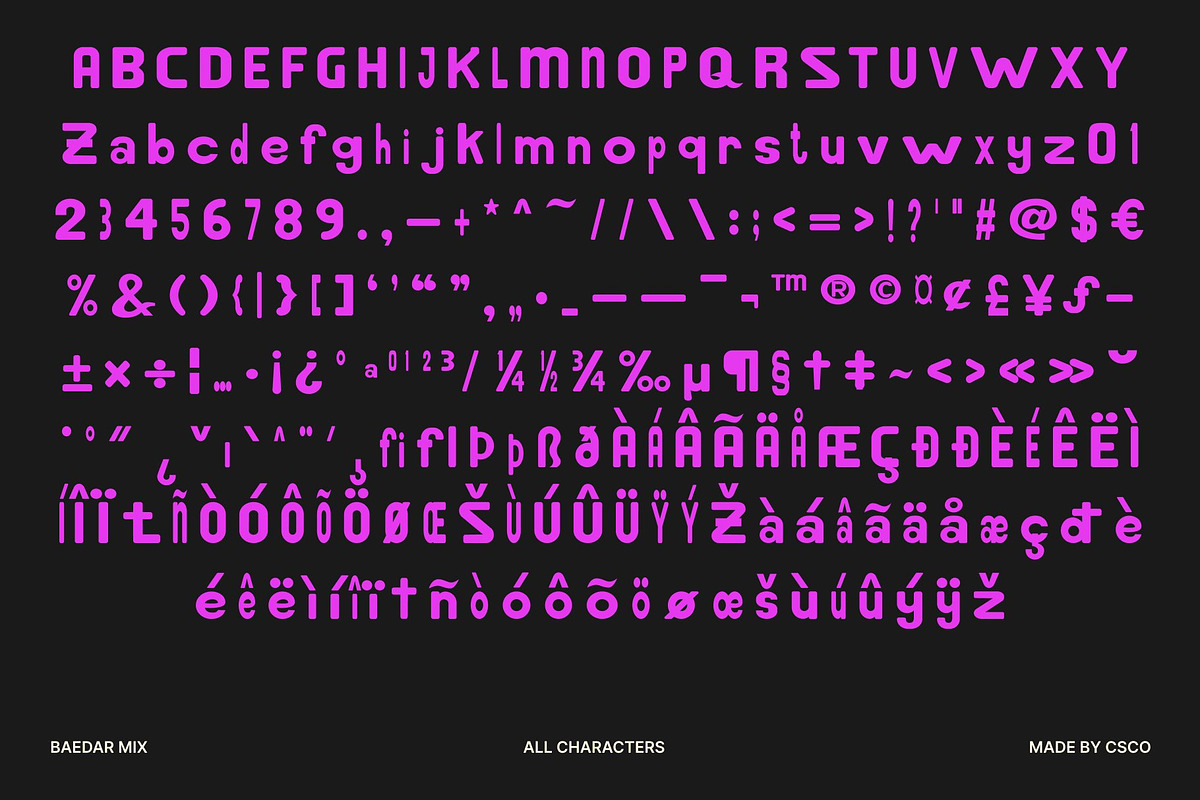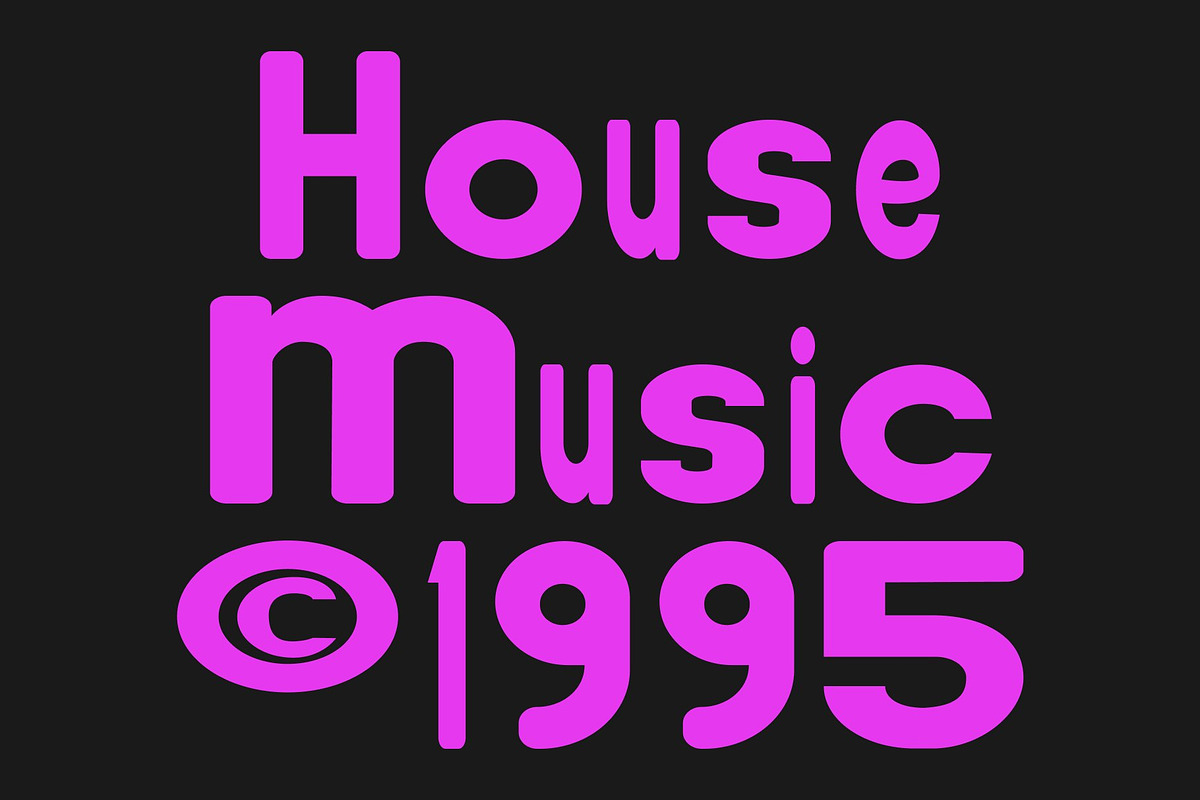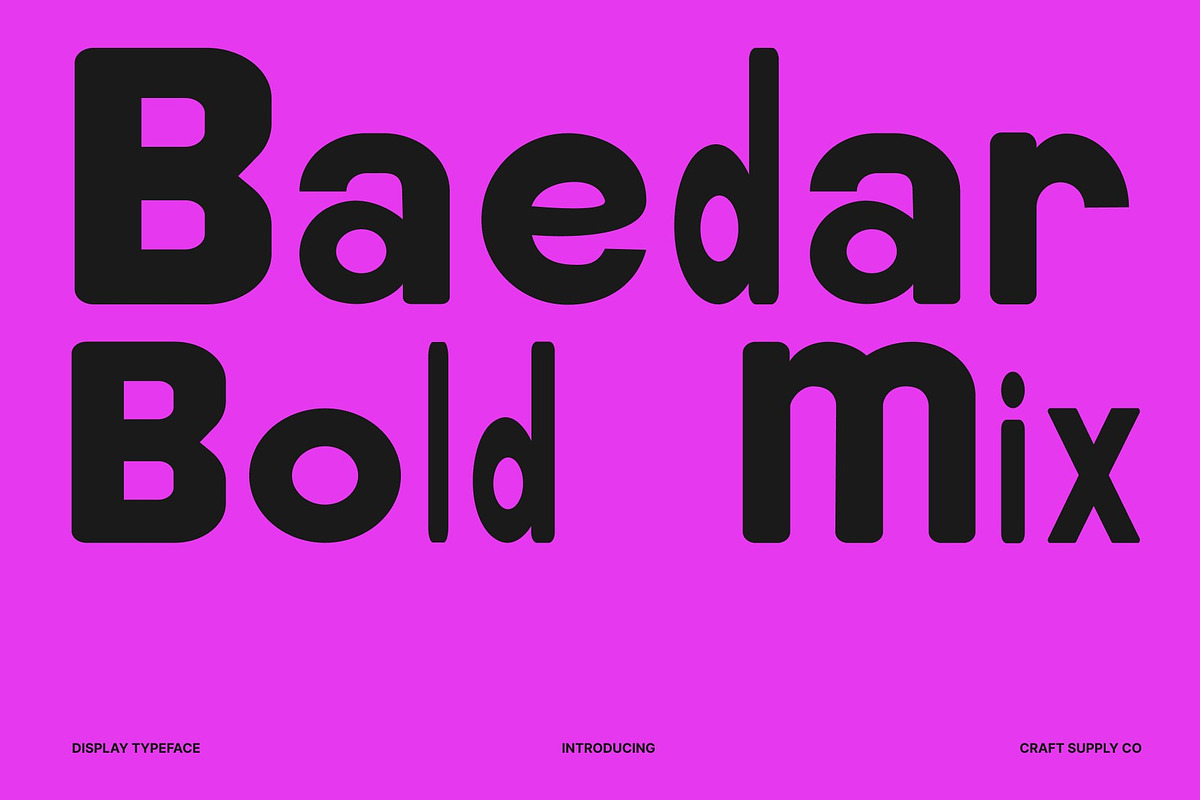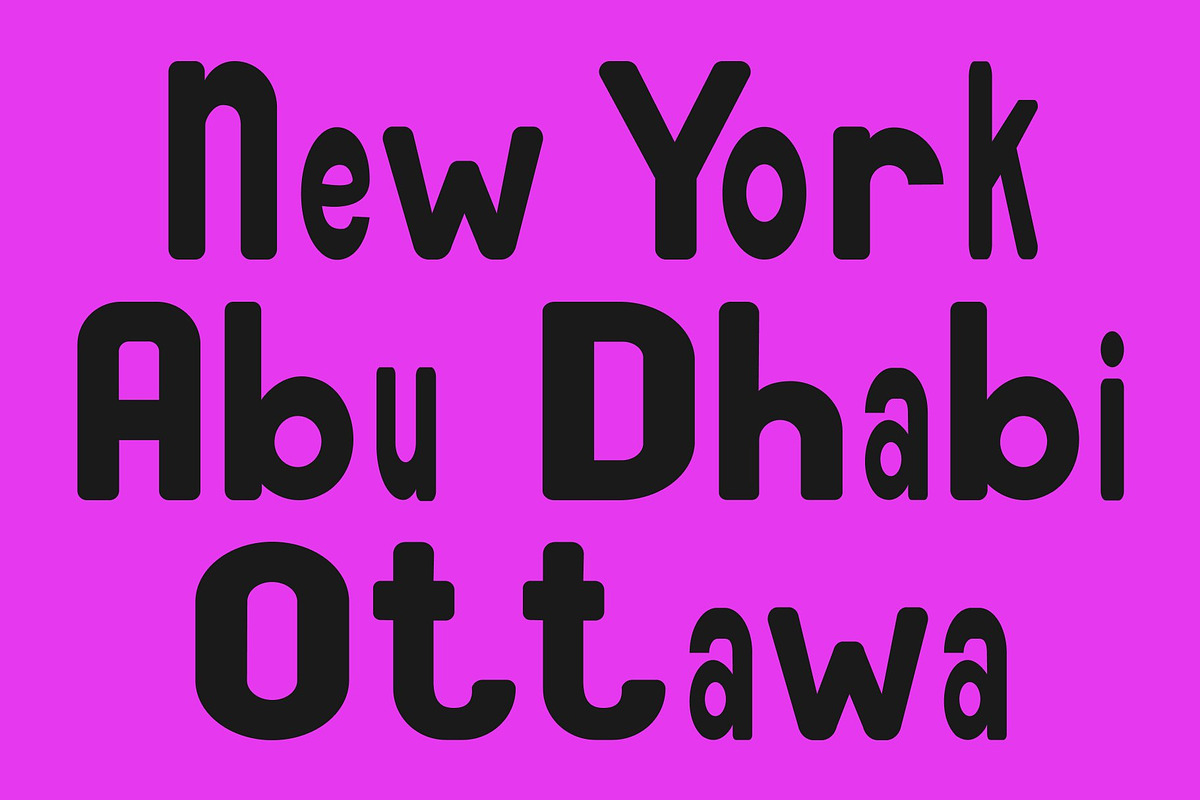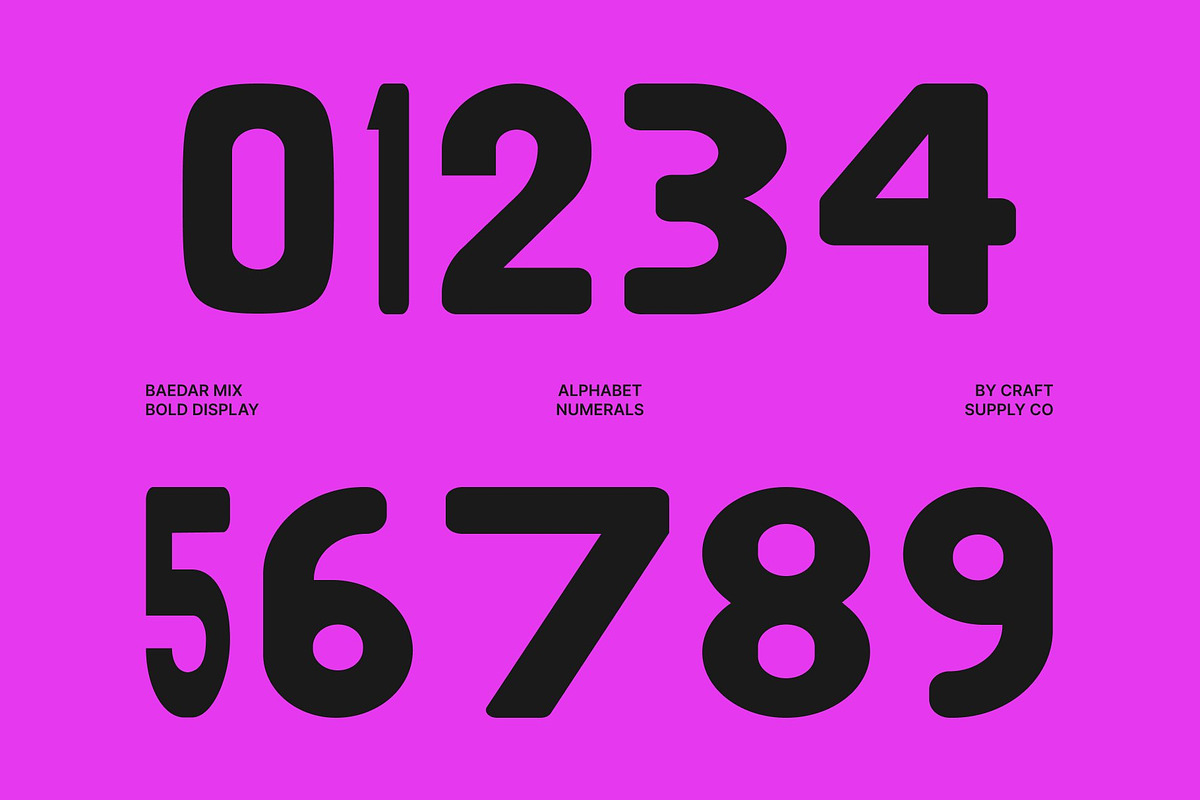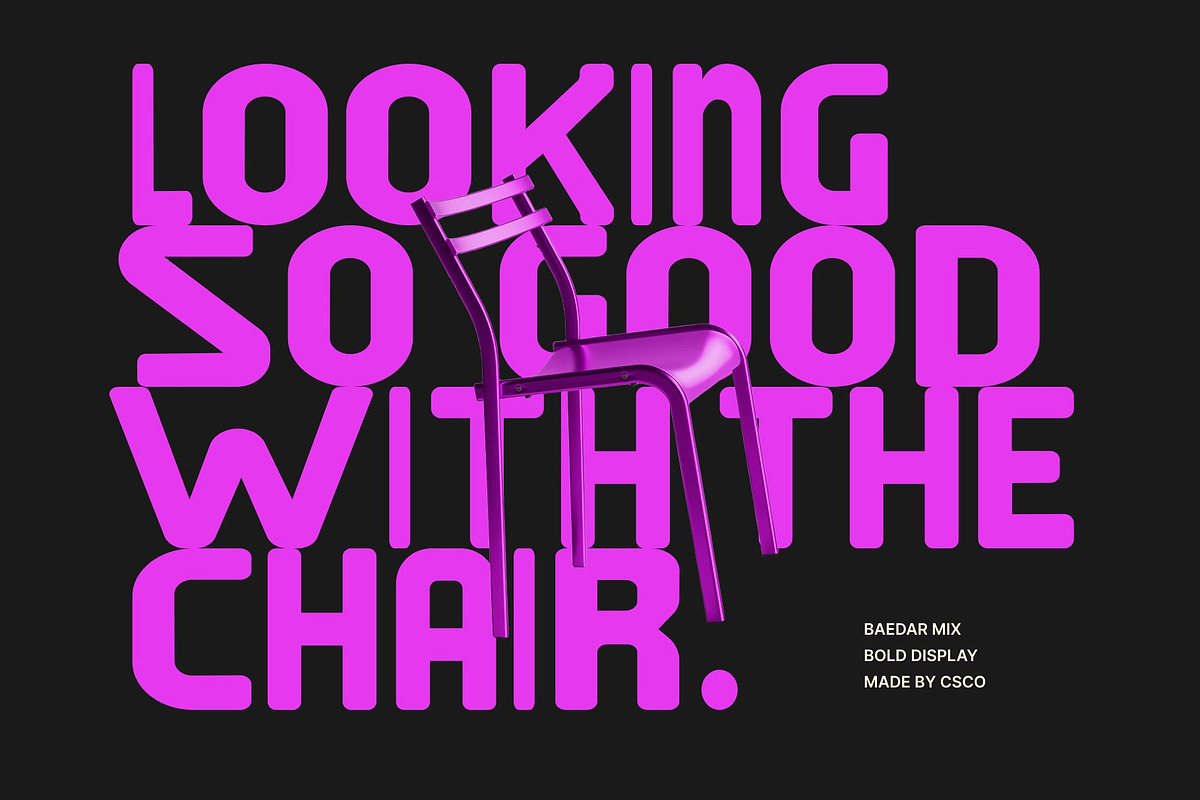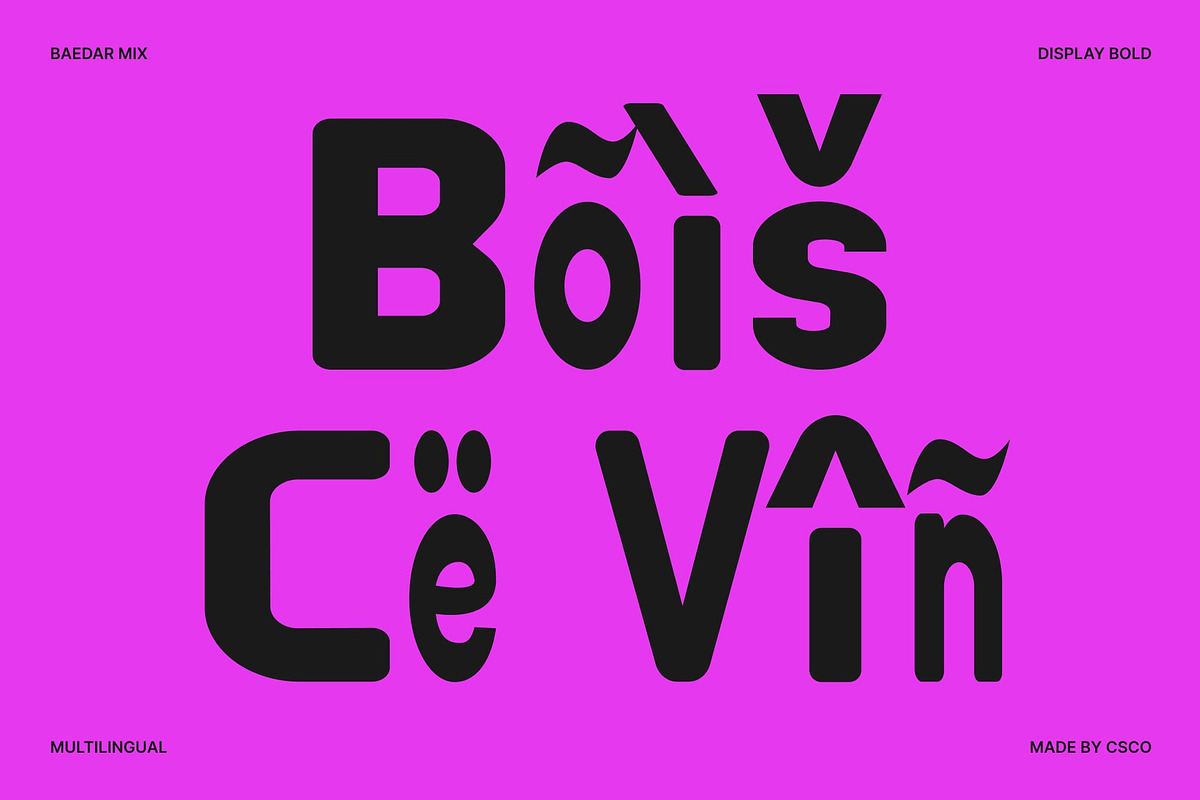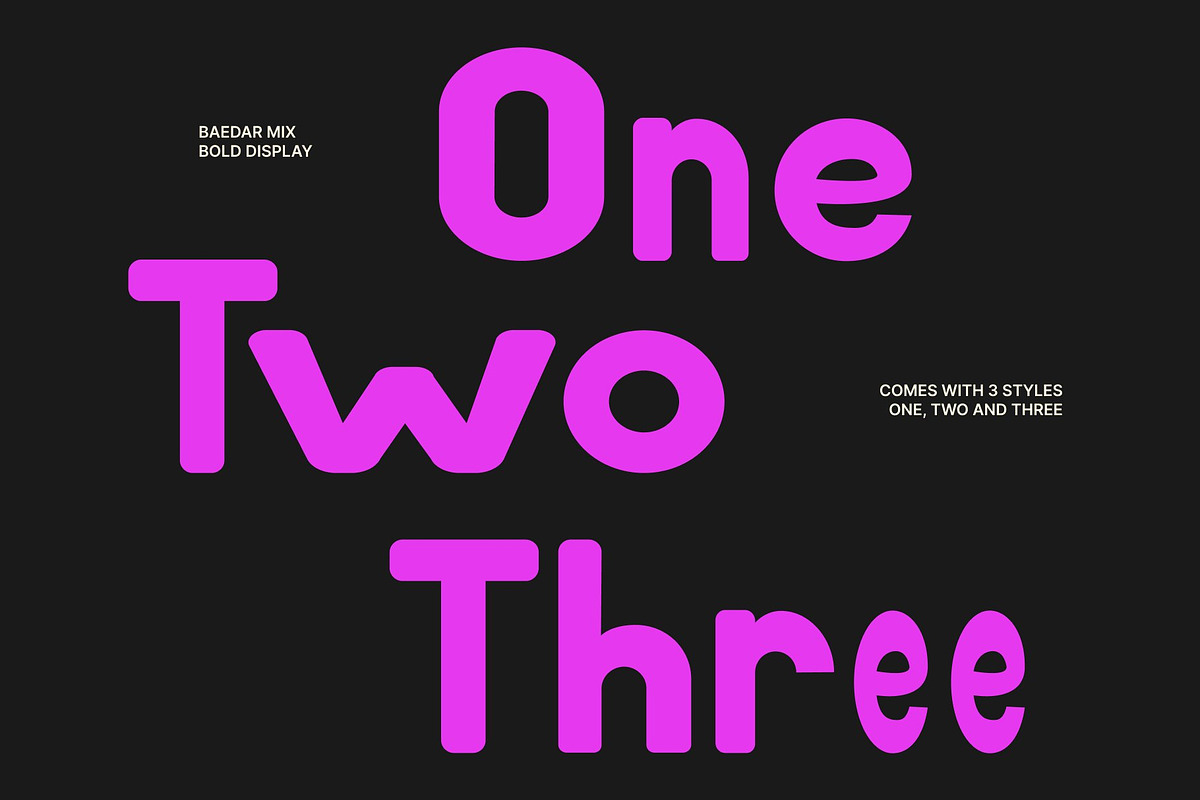
Baedar Mix
Baedar Mix – Bold Rounded Sans Serif: Friendly Strength with Modern Character
Bold Rounded Sans Serif with Mixed Style Personality This is a bold rounded sans serif font designed to combine strength with warmth and approachability. Featuring soft curves and confident strokes, this typeface introduces a distinctive mixed-style concept that adds visual rhythm and personality. The result is a font that feels both powerful and friendly, perfect for modern designs that need to stand out while remaining inviting.
A Unique Blend of Bold and Regular Letterforms The defining feature of lies in its creative fusion of bold and regular characters. This mix creates dynamic contrast and a lively typographic flow, transforming simple text into a visually engaging design element. The combination of strong forms and softer rounded shapes gives the font a contemporary and playful character without losing clarity or balance.
Warm, Approachable, and Visually Impactful This font brings a welcoming tone to bold typography. Its rounded corners soften the strong structure, making the font feel friendly, accessible, and highly readable. This balance allows designers to communicate important messages with confidence while maintaining a sense of warmth and connection with the audience.
Perfect for Branding, Social Media, and Eye-Catching Displays From posters and websites to branding and social media graphics, this font adapts effortlessly to a wide range of creative projects. Its bold presence ensures headlines capture attention instantly, while its readability keeps messages clear across digital and print formats.
Baedar Mix One
Baedar Mix Two
Baedar Mix Three